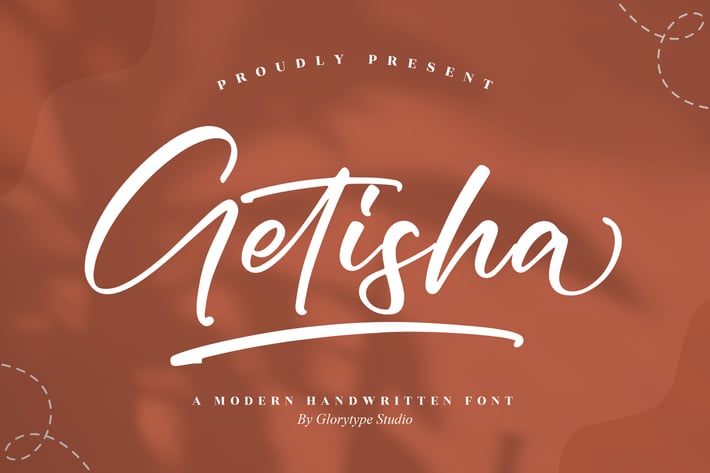
Getisha Modern Handwritten Font
Getisha is a modern handwritten script with smooth curves and a relaxed, natural flow. Its soft contrast and gentle swashes create a friendly, polished look that stays legible at small sizes and shines in large headlines. Versatile for both print and digital, it pairs beautifully with clean sans-serifs for balanced, contemporary designs.
+ Complete A–Z uppercase & lowercase
+ Numerals, punctuation & symbols
+ Stylistic alternates & beginning/ending swashes
+ Standard ligatures
+ Multilingual support
+ Precise kerning & smooth baseline for clean results
Handwritten warmth with a modern glow.
Design by Glorytype Studio